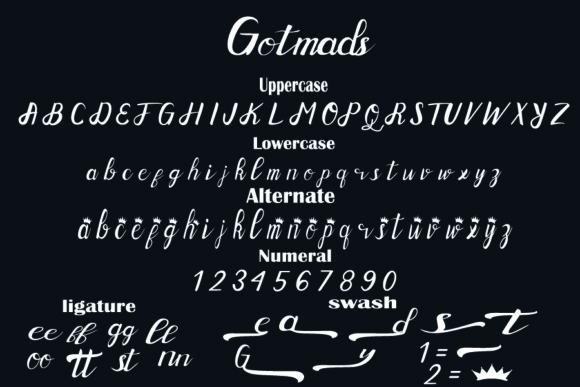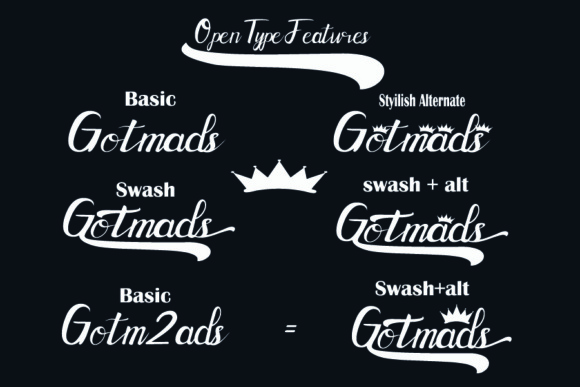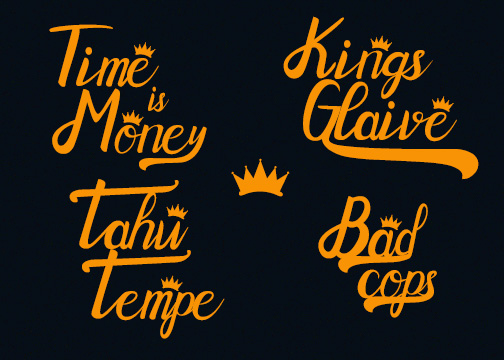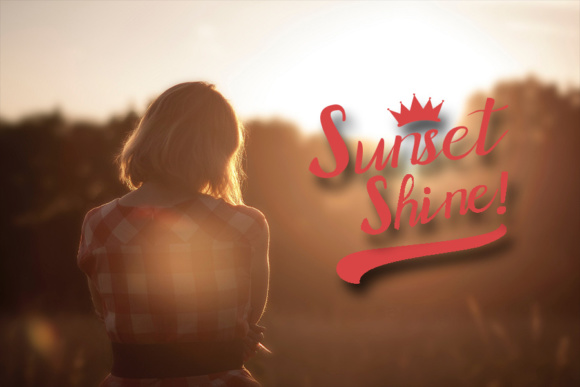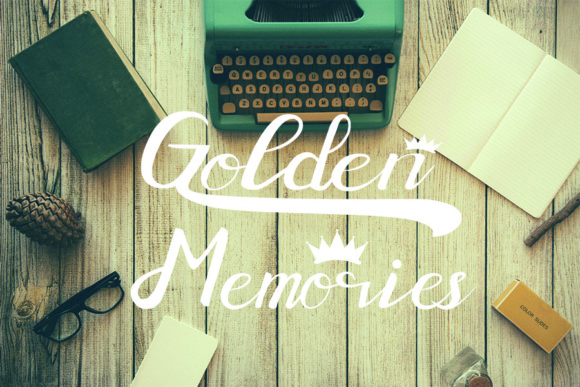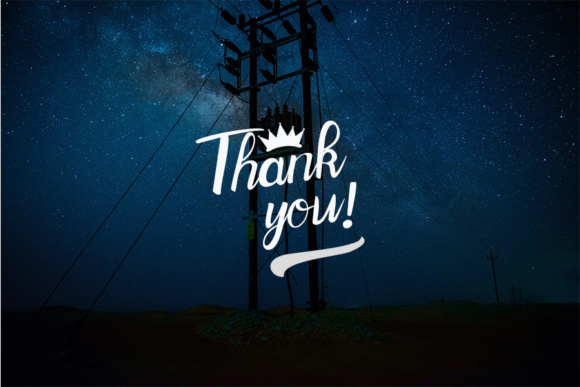
Introduction to Gotmads Font
Gotmads is a gorgeous, painterly font that can add a fun appeal to your projects.
This font comes with tons of stylistic alternates and swashes so you can create cool and impactful designs .
Key Features of Gotmads Font